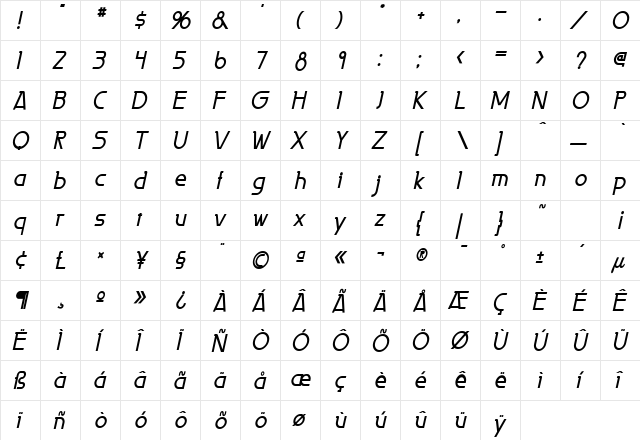
Persia Condensed Bold Italic Font Preview
Design Context for Persia Condensed Typeface
Persia Condensed offers clean, dependable letterforms without strong stylistic allegiance, making it a practical choice for designers who need flexibility. The slanted form adds forward momentum and visual energy. The heavy weight commands attention and anchors typographic hierarchies. The condensed width makes it efficient for tight spaces without sacrificing legibility.